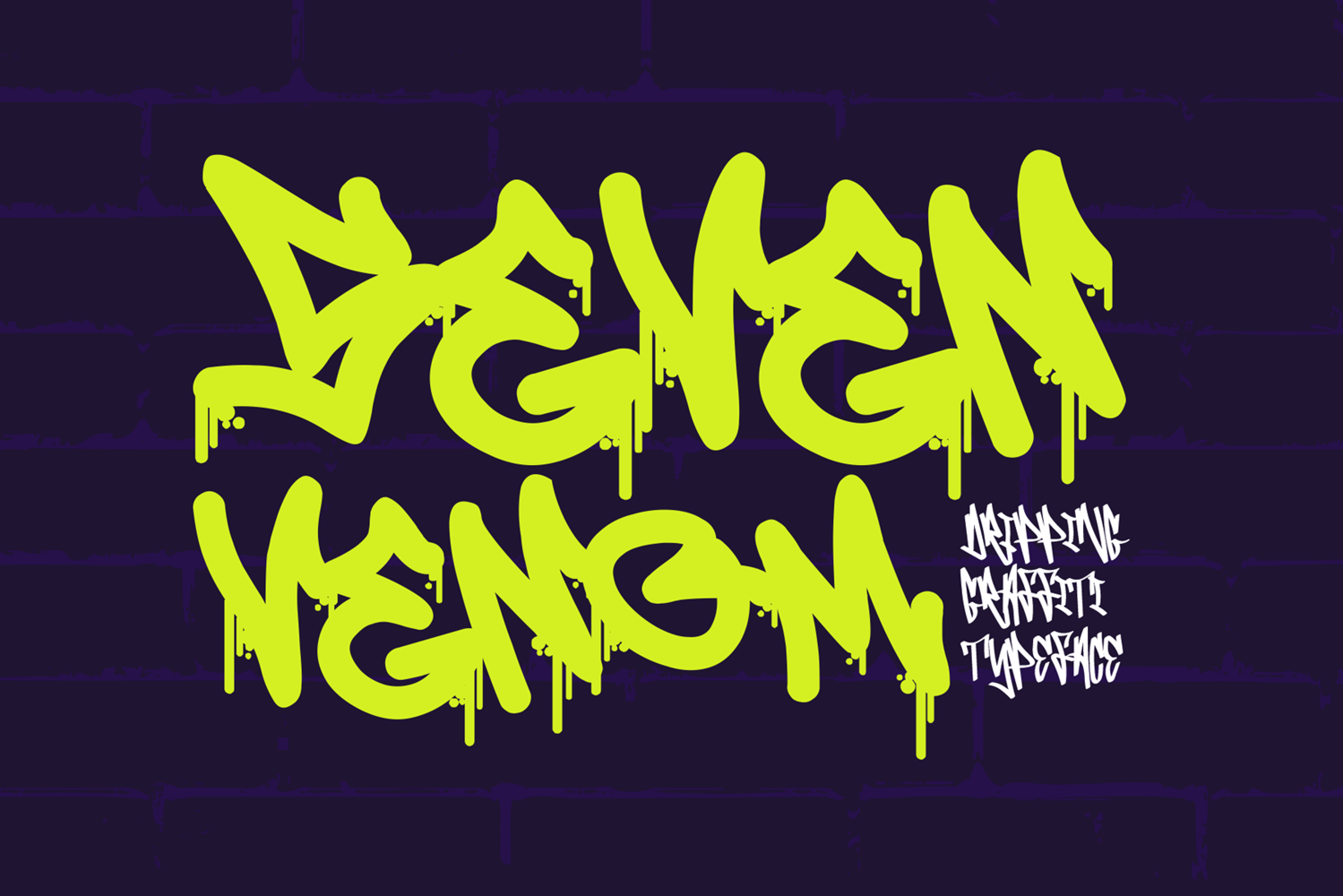
Seven Venom - Dripping Monoline Tagging Graffiti Font
Seven Venom is a bold and intense graffiti font, featuring a unique dripping effect that brings raw street art to life. Its striking design oozes attitude, making it perfect for designs that demand attention and leave a lasting impression.
💧 Dripping Style: The distinct dripping effect adds a fierce, rebellious touch, mimicking real graffiti paint for an authentic urban vibe. Whether for album covers, posters, or logos, this font stands out with its edgy, street-inspired aesthetic.
🔥 Bold Impact: With thick, venomous strokes, Seven Venom delivers an aggressive, high-energy presence. This typeface is ideal for projects that need a font with power and personality and ensures your message won't go unnoticed.
Seven Venom is more than just a font—it's an artistic statement. This graffiti font drips with style and creativity, perfect for urban, rebellious, and bold designs.